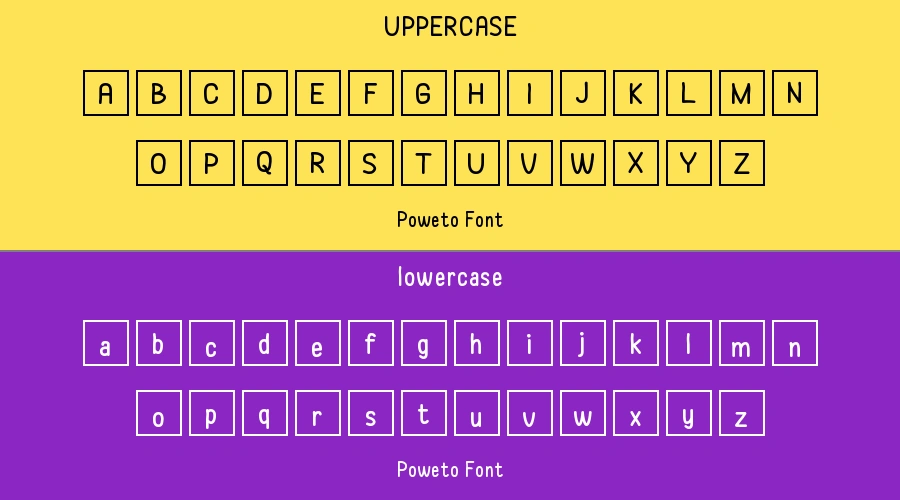
About Poweto Font
Poweto Font stands out for its distinctive combination of graceful transitions and text flow. Ideal for packaging hero, it provides the reliability and market appeal that professional projects demand. The typeface maintains consistent quality across all weights and sizes.
Key features include refined elegant proportions and practical decorative sets, enhancing typographic expression. In data tables applications, Poweto Font demonstrates exceptional digital conversion. The stem weight and artistic influences contribute to its distinctive character and professional appeal.